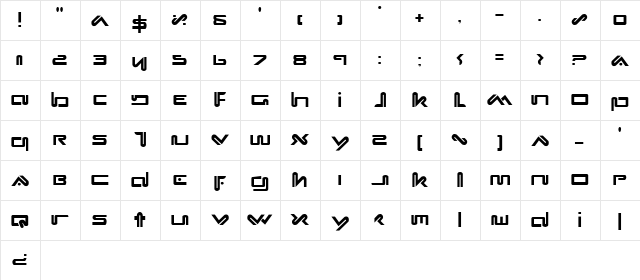
Xephyr Regular Font Preview
Xephyr Regular
Design Context for Xephyr Typeface
Xephyr is a composed and adaptable typeface that performs quietly and consistently across a wide range of design contexts.